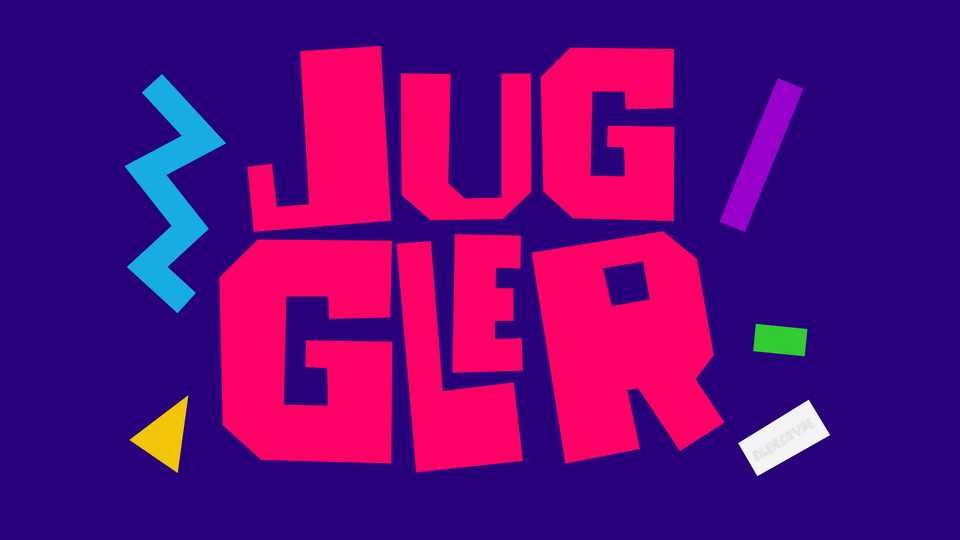
Download Juggler font, a cool display type with jagged, bouncy and quirky shape and a lot of energy and attitude. Talk fact, no drama, powerful quotes and motivation is the one that desperately need Juggler.
Designer: Alexatype